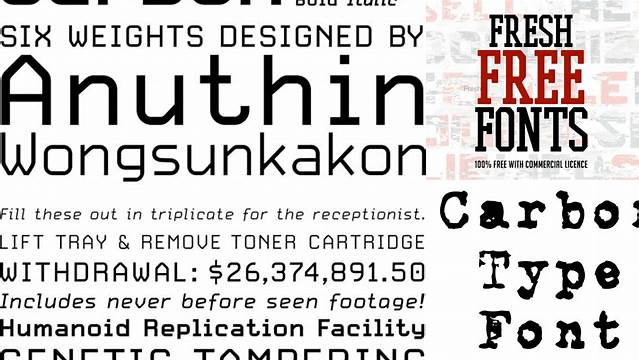
T-26 Carbon Font: Get It Free & Unleash Your Creativity
T-26 Carbon Font Free: Unleash Your Creative Potential
Hey guys, are you ready to dive into the world of typography? Today, we're gonna explore the T-26 Carbon font, a fantastic typeface that's available totally free! This font has a unique vibe and a whole lot of character, making it perfect for all sorts of creative projects. Whether you're a seasoned graphic designer, a budding web developer, or just someone who loves playing around with fonts, you're in the right place. We'll cover everything you need to know, from where to snag the T-26 Carbon font free download, to how to use it effectively, and even some cool design ideas to get your creative juices flowing. So, buckle up, because we're about to embark on a font-tastic journey!
1. What Exactly is the T-26 Carbon Font?
Okay, so first things first: what is the T-26 Carbon font? Well, it's a display font, meaning it's designed to grab attention and make a statement. Think bold headlines, eye-catching logos, and anything that needs a touch of that special something. The T-26 Carbon font boasts a distinct, industrial aesthetic. It often features a slightly distressed look, mimicking the appearance of weathered or worn surfaces, which gives it a raw, edgy feel. Imagine the grit of a carbon fiber texture, and you're getting close. This font really shines in designs where you want to convey strength, resilience, or a touch of vintage charm. Its versatility is also a major plus. You can use the T-26 Carbon font in a wide array of projects: website headers, posters, social media graphics, t-shirt designs, you name it! The font is known for its readability, even at smaller sizes, especially when used in its bolder weights. This makes it a fantastic choice if you want to make sure your message is crystal clear, even from a distance. The style is very unique, and you will love the way your design will look.
4. Using T-26 Carbon Font in Your Designs
Okay, let's get creative! Now that you've got the T-26 Carbon font installed, it's time to put it to work. The key to using this font effectively is understanding its strengths and limitations. Remember, it's a display font, which means it's best suited for headings, titles, and short snippets of text. Avoid using it for large blocks of body text, as it can be hard to read. Think of the T-26 Carbon font as a statement maker, a way to add personality and impact to your designs. To get started, open your favorite design software. Create a new project or open an existing one. Select the text tool, and then find the T-26 Carbon font in your font list. Experiment with different sizes and weights to see what works best. Sometimes, the heavier weights look best, while other times, a lighter weight might be the perfect touch. Play around with color. The T-26 Carbon font looks great in bold, contrasting colors. Think black on white, white on black, or even bright colors like red or yellow. Consider adding some visual effects to further enhance the font's impact. You could add a drop shadow, a stroke, or even some texture to give it a more distressed appearance. Remember, there is no limit to what you can do when it comes to being creative.
5. Pairing T-26 Carbon Font with Other Fonts
Now that you know how to use the T-26 Carbon font individually, let's explore how to pair it with other fonts. The art of font pairing is all about finding fonts that complement each other, creating a balanced and visually appealing design. When pairing the T-26 Carbon font, which has a strong, industrial aesthetic, it's often best to choose a more neutral or clean font for the body text. This creates a nice contrast and ensures that the reader's eyes aren't overwhelmed. For body text, consider using a sans-serif font like Open Sans, Lato, or Montserrat. These fonts are known for their readability and work well at smaller sizes. They also have a modern look that complements the T-26 Carbon font nicely. Another option is to use a serif font like Georgia or Times New Roman. Serif fonts can add a touch of elegance and sophistication, which can be a nice contrast to the boldness of the T-26 Carbon font. Just make sure the serif font isn't too ornate, as it could clash with the industrial style of the display font. When pairing fonts, pay attention to the overall visual balance. Make sure the fonts don't compete with each other for attention. The T-26 Carbon font should be the star of the show when used for headings, while the body text should provide support. Try to keep the font family consistent with the same font style. This provides a great visual consistency for your design.
6. T-26 Carbon Font Free: Design Ideas and Inspiration
Okay, let's fire up those creative engines! Here are some design ideas to get you started with the T-26 Carbon font and spark your imagination. You can create website headers, use the font for bold headings to capture attention. Its industrial look can lend a unique vibe to any site. This also applies to poster designs, using the font for eye-catching headlines to promote events, products, or services. Add the T-26 Carbon font to your social media graphics. Create engaging quotes, memes, or promotional content to boost your online presence. If you are a designer, you can also make t-shirt designs using the T-26 Carbon font to create bold statements. The distressed look can give your designs an edgy, modern feel. You can also incorporate this font into logo design, using the unique character of the font to create a memorable brand identity. Another fun idea is to create invitations and announcements. The font can give invitations a distinctive touch for parties or special events. Let's say you want to create packaging and labels for your products. The font can add a touch of industrial style to your product's appearance, making it more appealing.
7. T-26 Carbon Font: Advantages and Disadvantages
Just like any font, the T-26 Carbon font has its strengths and weaknesses. Let's break them down so you can make informed design decisions. One of the biggest advantages is its unique and eye-catching style. The industrial, distressed look really makes your text stand out, which is perfect for grabbing attention. The font is highly versatile, suitable for various design projects, from websites to posters to social media. The readability, especially in its bolder weights, is another plus, ensuring your message is clear. However, there are also some disadvantages to consider. The T-26 Carbon font is not ideal for large blocks of text. Its bold and distressed style can make it difficult to read in longer passages. You might also find that it's not suitable for all design styles. The industrial aesthetic might not mesh well with projects that require a softer or more elegant look. It is recommended to use it for headlines and short sentences, keeping it clean and crisp. Also, consider the availability of different weights and styles. While the basic T-26 Carbon font is widely available, you might not find a wide range of weights and styles, which could limit your design options.
11. Understanding Font Families and T-26 Carbon Font's Place
Let's take a look at the bigger picture and discuss font families and where the T-26 Carbon font fits in. A font family is a collection of fonts that share a common design. Within a font family, you'll find different variations, such as bold, italic, and condensed versions of a specific typeface. This provides a designer with a variety of options. The T-26 Carbon font, in many ways, is a stand-alone font. It doesn't come with a full font family of varying weights and styles in the traditional sense. However, it has a unique and distinctive look that makes it great for display purposes. When it comes to font families, it is all about versatility. The T-26 Carbon font can be used as a